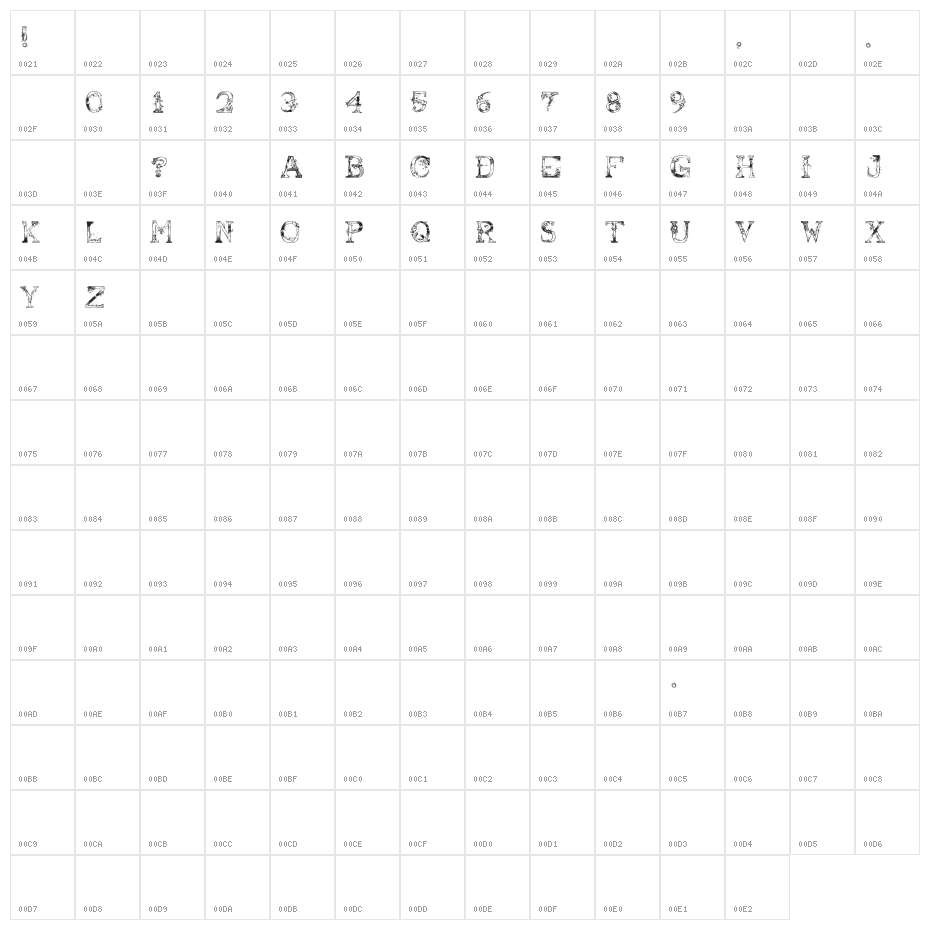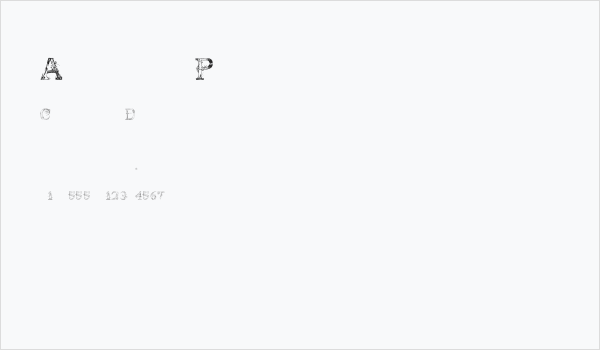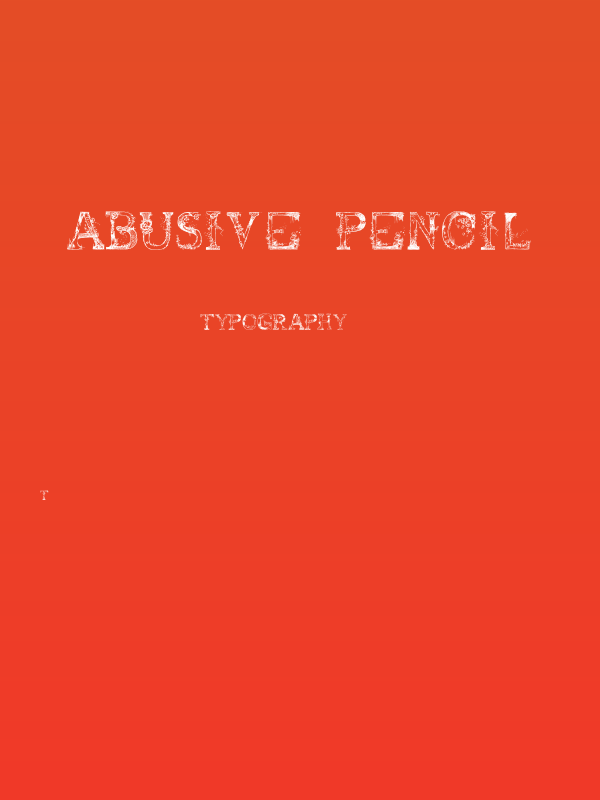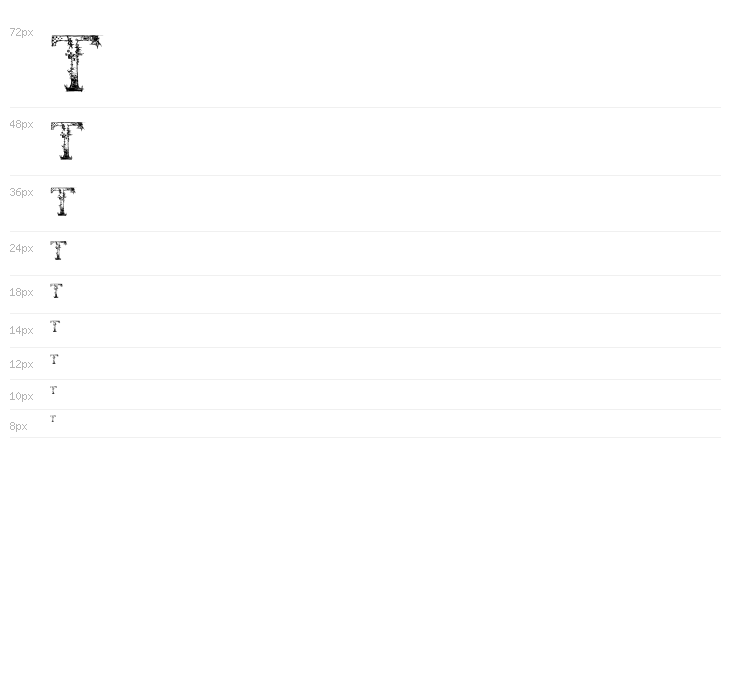
Abusive Pencil Font
Abusive Pencil Description
This font features a distressed and textured appearance, giving it a rugged and worn-out look. The characters are bold and heavily stylized, with a rough, eroded texture that suggests a vintage or grunge aesthetic. The uppercase letters are prominent and eye-catching, while the numbers and special characters maintain the same distressed style, adding to the overall cohesive design. This font's unique texture makes it stand out, providing a sense of character and depth to any design project.
| Proposed Projects | Ideal for projects requiring a vintage or grunge look, such as posters, album covers, or branding for edgy or alternative products. |